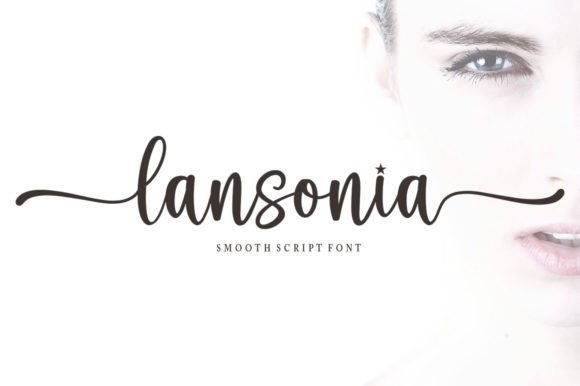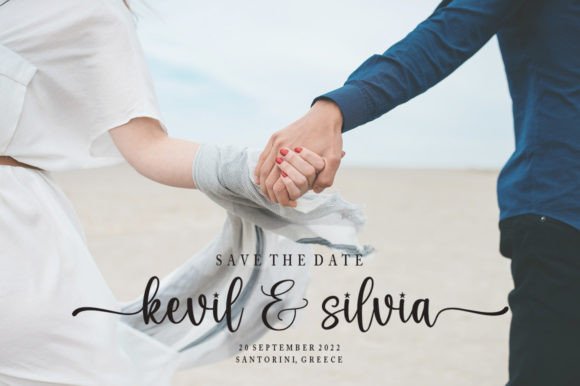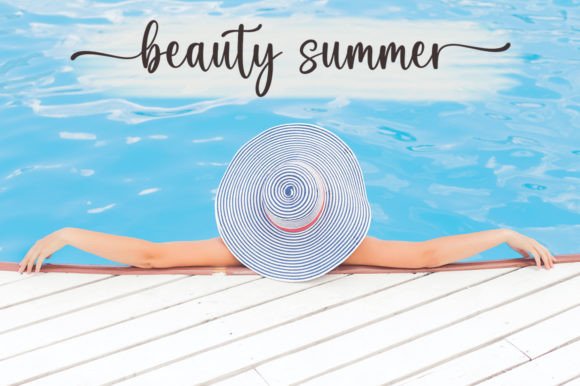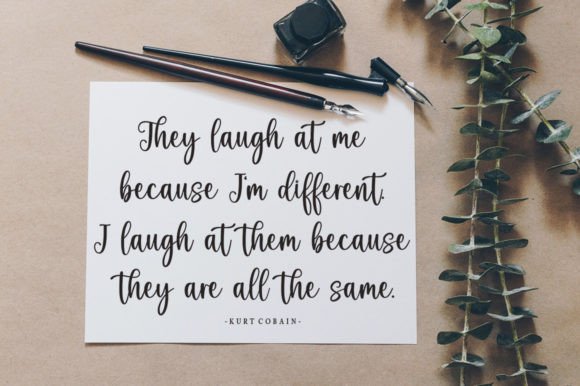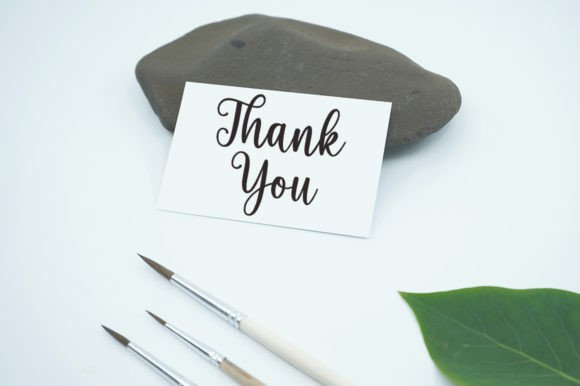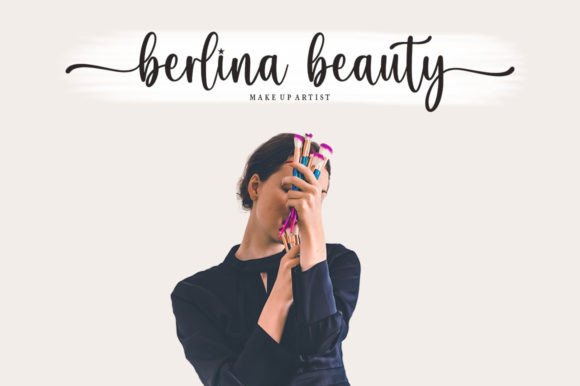
Lansonia Font
“Lansonia” is more than just a font; it’s a delicate and elegant handwritten typeface that brings a touch of grace and fluidity to your designs. What sets “Lansonia” apart is its beautifully crafted and well-balanced characters, creating a harmonious and pleasing aesthetic. Whether you’re using it for digital or print projects, “Lansonia” is designed to add a sense of sophistication to your creations.
The delicate and flowing nature of “Lansonia” makes it a perfect choice for a wide range of designs. Imagine this font gracing wedding invitations, greeting cards, quotes, logos, branding materials, or any project where a touch of elegance is desired. Picture “Lansonia” adding a sense of refinement to your designs with its graceful curves and beautifully crafted letterforms.
One of the standout features of “Lansonia” is its PUA encoding, allowing easy access to all the glyphs and swashes. This means you can unleash the full potential of this font, customizing your designs with additional characters and flourishes to create truly unique and personalized creations.
Whether you’re working on a romantic wedding invitation, a sophisticated branding project, or any design that calls for an elegant touch, “Lansonia” is a font that goes beyond letters on a screen—it’s a creative tool that brings a sense of delicacy and refinement to your projects. Let “Lansonia” be the handwritten font that adds a touch of grace and elegance to your designs, making them stand out with timeless beauty.